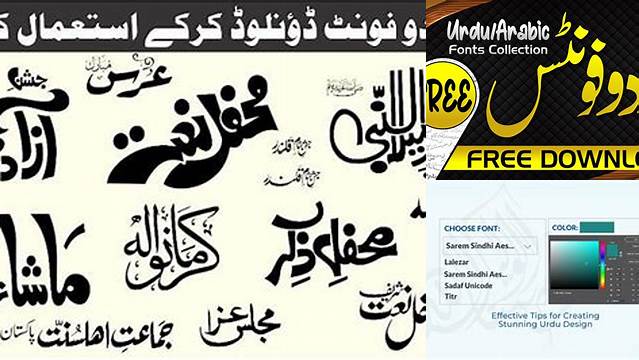
Create Stunning Urdu Typography: Fonts & Designs
Hey everyone! Ever wanted to spice up your Urdu writing and make it pop? Well, you're in the right place! We're diving deep into the world of the Urdu beautiful fonts generator, exploring how you can create amazing typography that grabs attention and looks fantastic. Whether you're a designer, a writer, or just someone who loves Urdu, this guide is packed with tips, tricks, and resources to help you level up your font game. Let's get started and transform your Urdu text into something truly beautiful!
Unleashing the Power of Urdu Fonts: Why They Matter
So, why bother with Urdu beautiful fonts? Think about it: the right font can make your words sing! It can convey emotion, add personality, and draw readers in. If you’re using Urdu, you need fonts that are not just readable, but also aesthetically pleasing and culturally relevant. A well-chosen font can transform a simple message into a work of art. From creating captivating social media posts to designing professional documents, choosing the right Urdu font can make all the difference. It's all about the visual appeal. Consider how much impact the correct font has on overall readability. You want your audience to be able to read it and feel something, too. The selection of the right font is incredibly important to the success of your writing or project. In other words, having access to the right Urdu fonts will boost your communication to another level.
Moreover, different Urdu fonts have different styles, allowing you to match the tone and purpose of your content. A flowing Nastaliq font might be perfect for poetry, while a more modern, clean font could suit a business presentation. This is a very exciting aspect. You have a whole world of options to choose from and the right option will fit the context of your writing. It can be the difference between someone being engaged and simply not reading. So if you are writing to a broad audience, then consider going for a friendly, and easy-to-read font. Consider if you want to use a calligraphy font, or a more modern style. The choices are endless, and that is why the study of fonts is so important.
Types of Urdu Fonts and Their Characteristics
When you start exploring the world of Urdu beautiful fonts, you'll quickly discover the variety available. The main categories include Nastaliq, Naskh, and modern Urdu fonts. Each has its unique characteristics. Nastaliq, known for its elegant curves and flowing style, is traditionally used in Urdu calligraphy and poetry. Its aesthetic appeal is unparalleled, but it can be more difficult to read at small sizes. On the other hand, Naskh fonts are generally easier to read, making them ideal for long-form content like articles and books. They have a cleaner, more structured appearance. And then, of course, there are the modern Urdu fonts, which provide a contemporary look and are perfect for digital media and design. In terms of usability and compatibility, you can utilize OpenType or TrueType fonts to ensure compatibility with your software and devices. It's a good idea to choose fonts that support both Urdu and Arabic characters. It's important to consider which type of Urdu fonts is best to be applied for the needs of your writing.
The Role of Font Styles and Aesthetics
The aesthetics of Urdu beautiful fonts are crucial. The style of your chosen font can dictate how your content is received. A calligraphy-style font, for example, can create a sense of sophistication and tradition, while a modern, sans-serif font can communicate a sense of modernity and simplicity. The right font choice is very important. Some fonts emphasize the connection between the characters, a core feature of Urdu writing, while others prioritize clarity and readability. Additionally, the aesthetics of a font can vary in terms of weight, slant, and width. The use of these features helps enhance the appearance of your content, and improve its readability. Consider how these elements can enhance the overall look and feel of your text. Be mindful of the overall context. The aesthetics of the font should align with the subject of the content. The font should complement the content itself. All elements must work together and create a beautiful design.
Finding the Perfect Urdu Fonts: Where to Look
Before you download any Urdu beautiful fonts, it's essential to understand the licensing and usage rights. Fonts can be free for personal use but may require a commercial license for commercial projects. Licenses specify how you can use the font. When using fonts, always check the license details. It will tell you what's allowed. Some licenses might restrict usage on certain platforms. Others might require attribution to the font designer. This is what you need to know before applying any fonts to your work. Failing to adhere to the terms of a font license can result in legal issues. So always make sure you are following the license terms. Keep in mind that the rules can vary by designer and font.
Using an Urdu Beautiful Fonts Generator: A Step-by-Step Guide
Now, let's dive into how to use a Urdu beautiful fonts generator! These tools make it incredibly easy to customize your text and create stunning visuals. Here’s a step-by-step guide to help you get started:
Accessing and Navigating the Generator Interface
First, you'll need to find a reputable Urdu beautiful fonts generator. Once you've chosen a generator, the next step is to understand the user interface. Familiarize yourself with the layout. Most generators have a text input area where you can type or paste your Urdu text. They also have a section for font selection, where you can browse through various available fonts. Most generators have menus, allowing you to adjust settings. Usually, the interface is designed for ease of use. You can also often customize the font size, color, and background. Check if the tool also provides features for formatting your text. Play around with the different options and see what you can create.
Customizing Your Text: Font Selection and Formatting
Once you’re familiar with the interface, it's time to start customizing your text! Begin by typing or pasting your Urdu text into the text input area. Then, browse through the font selection options, and choose the font that best suits your needs. Keep in mind your context of writing. After selecting a font, you can adjust its size, color, and other formatting options. Many generators also offer text-decoration features, like bold, italics, and underlines. Experiment with these features to enhance your design. With time and practice, you will be able to find the perfect design.
Conclusion: Mastering the Art of Urdu Typography
So, there you have it! You're now armed with the knowledge and tools to create stunning Urdu beautiful fonts and elevate your Urdu writing. Remember, practice makes perfect. Experiment with different fonts, styles, and techniques. The more you practice, the better you'll become. Keep exploring, stay curious, and never stop creating!